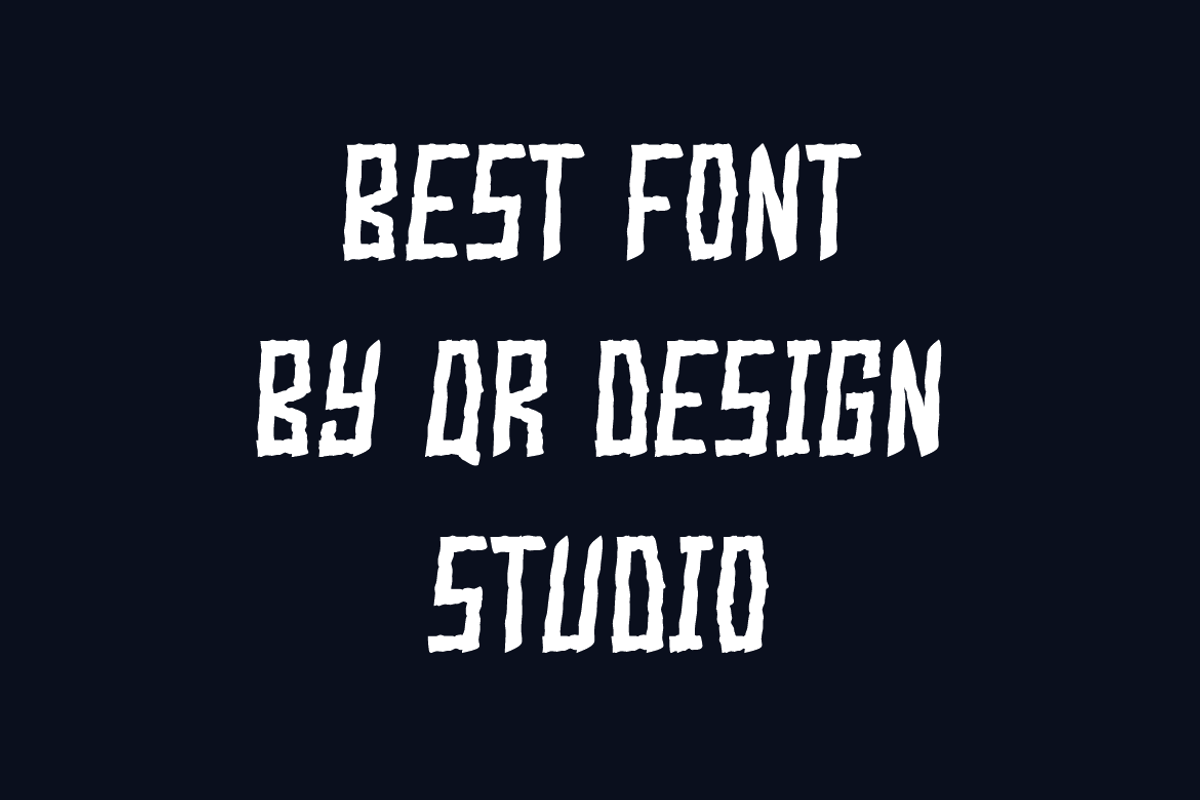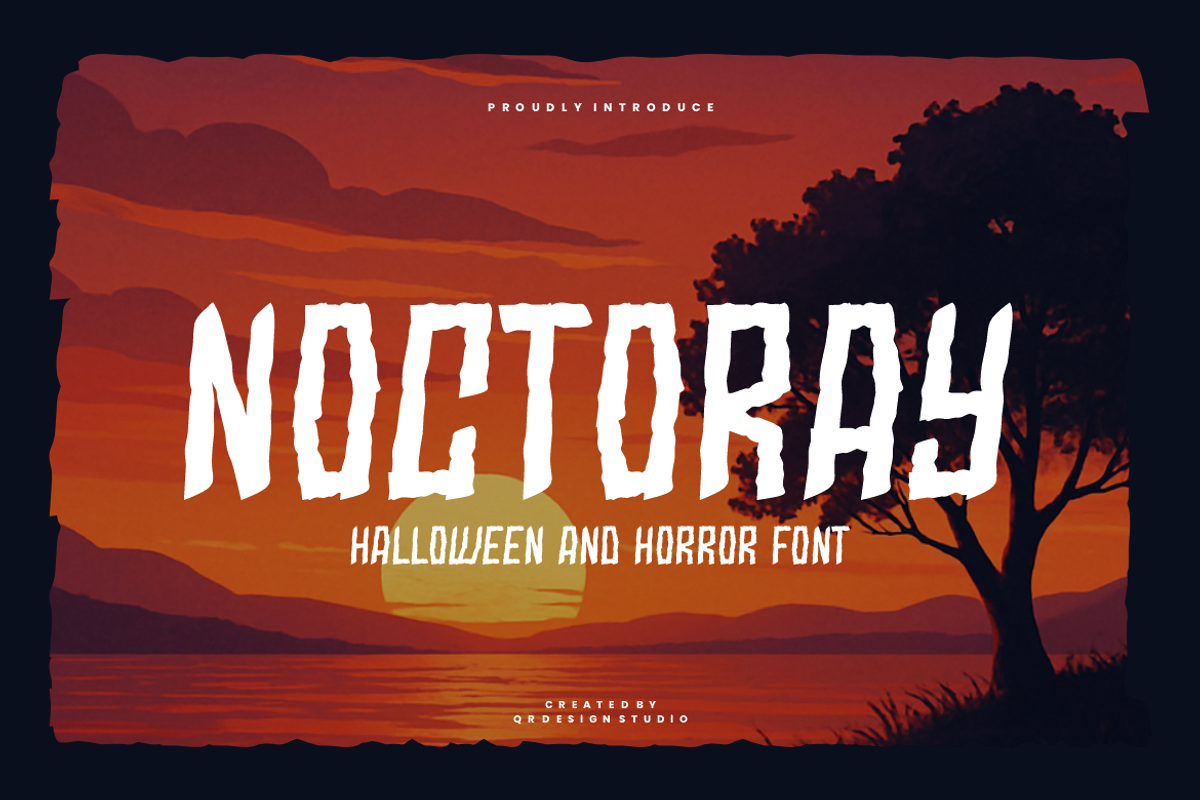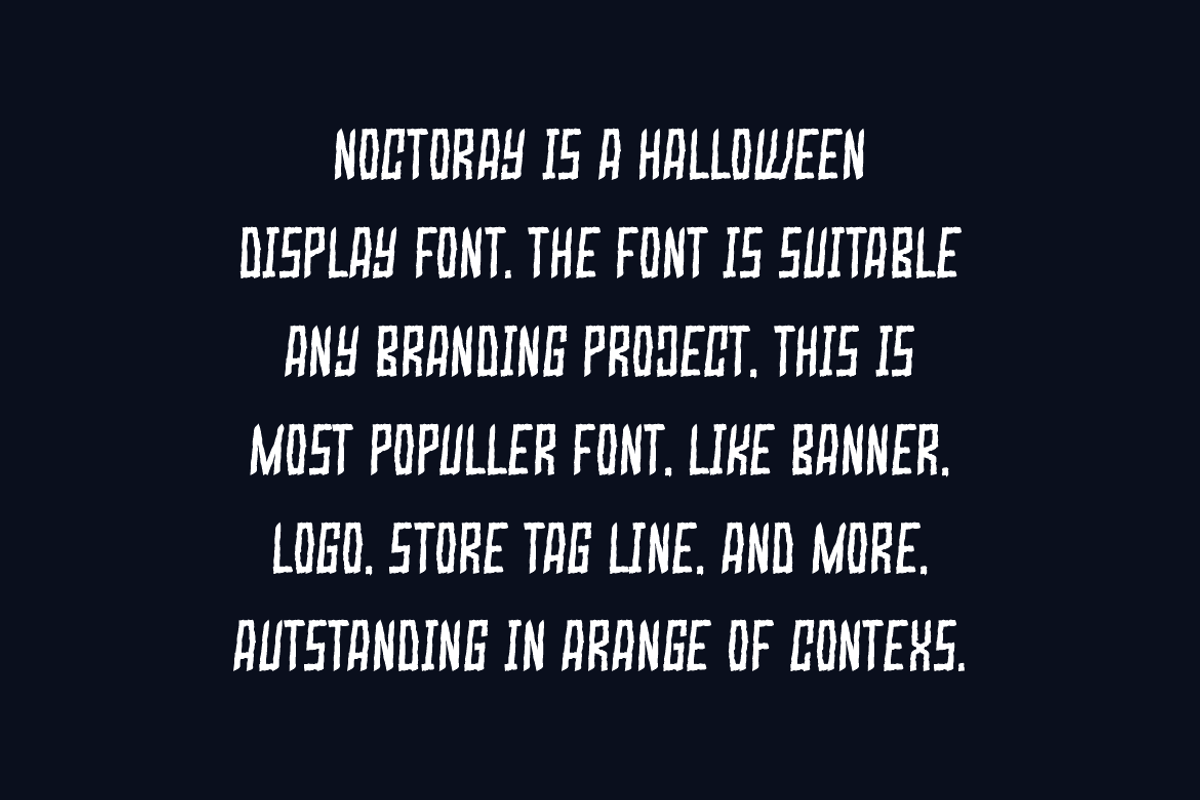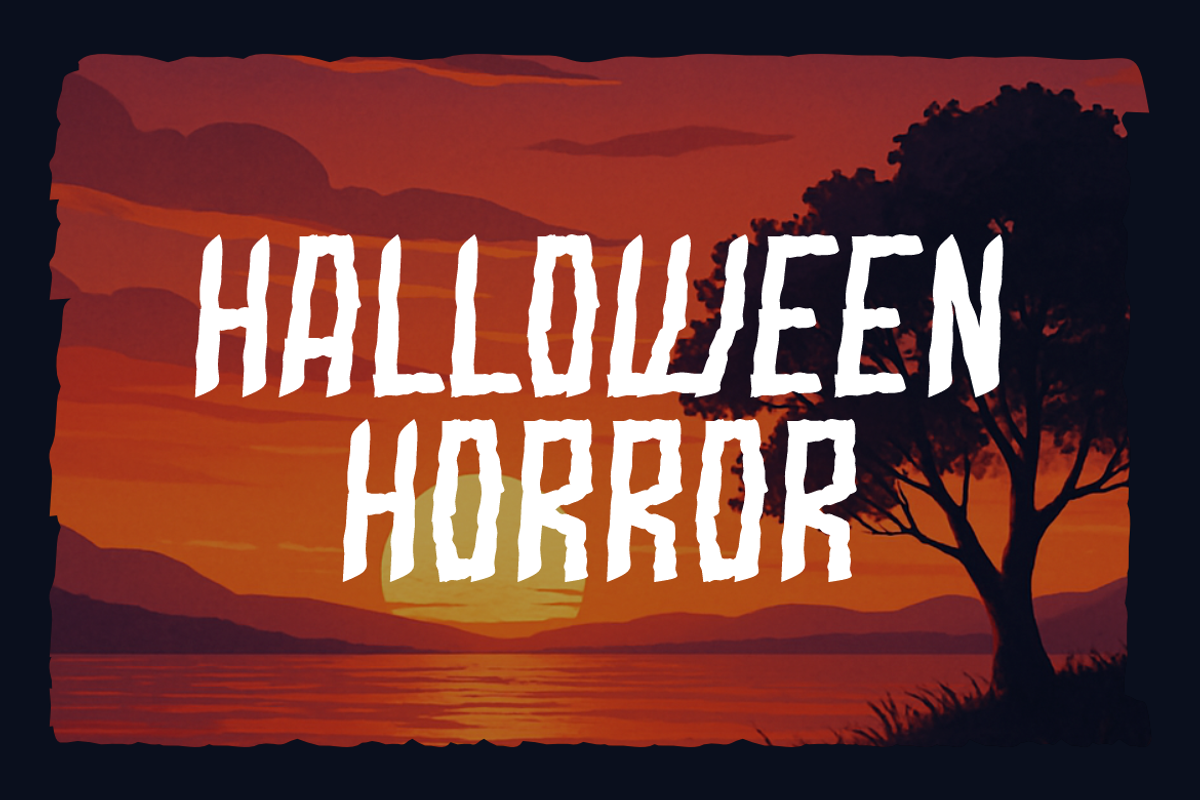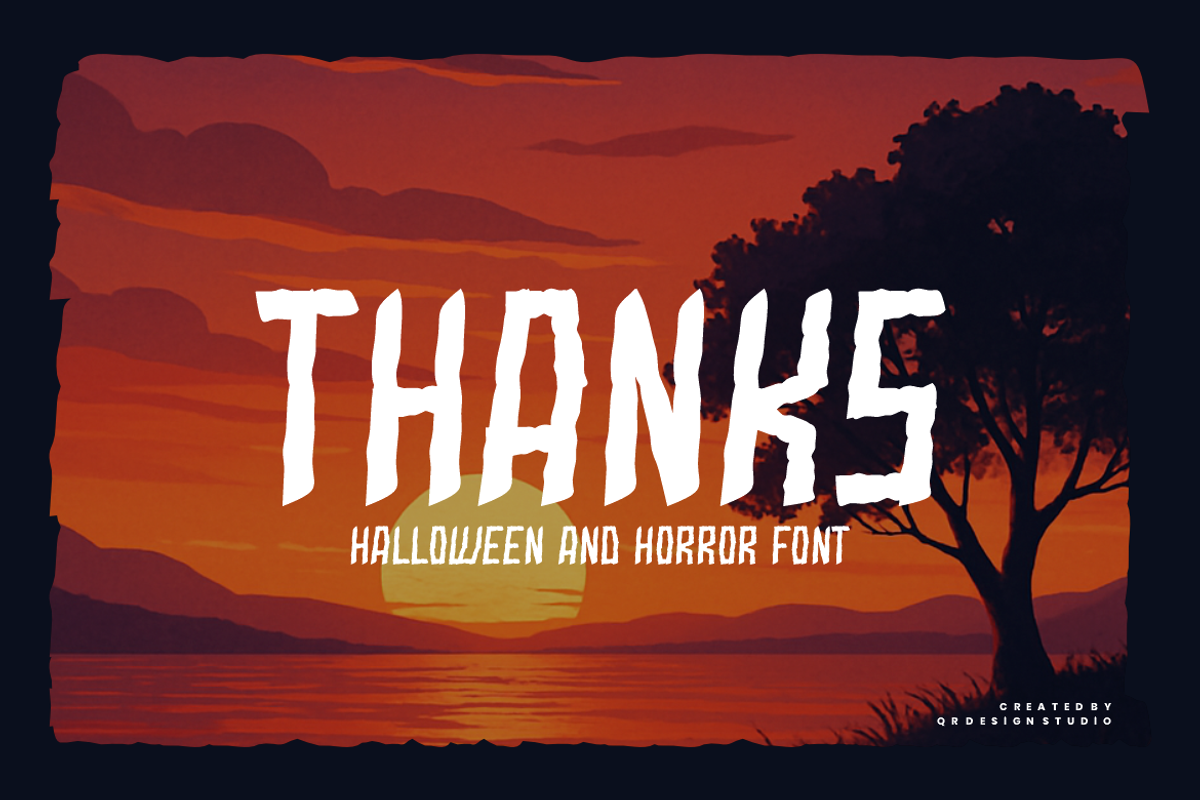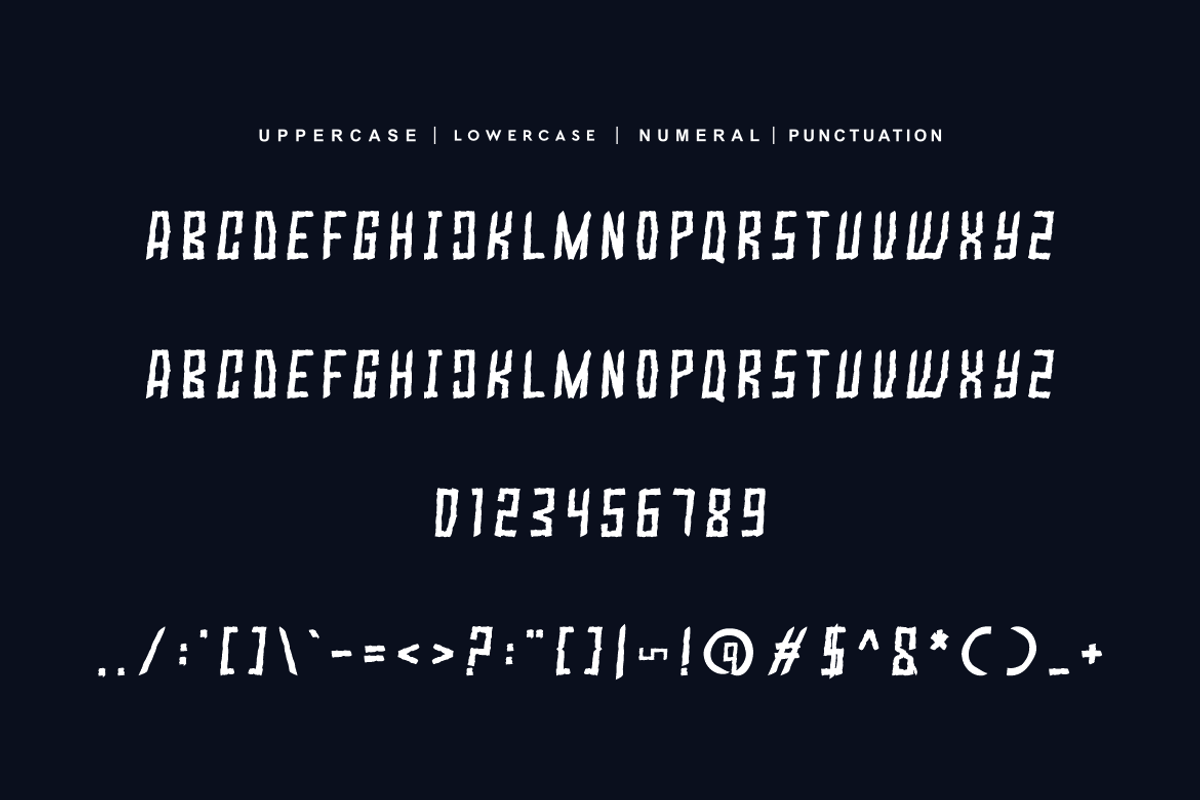
Noctoray - Halloween Font
Noctoray Font is a halloween and authentic display font. The font is suitable for any branding project like poster, logo, halloween, and many more. Outstanding in a wide range of contexts.